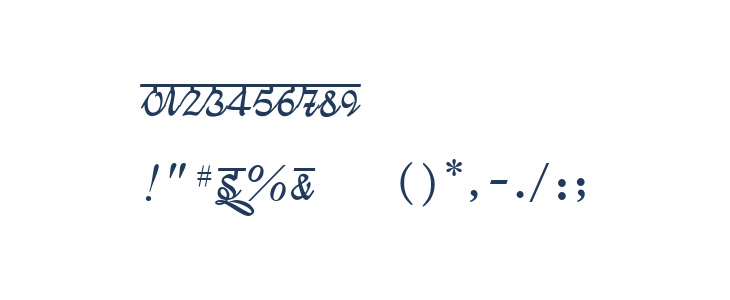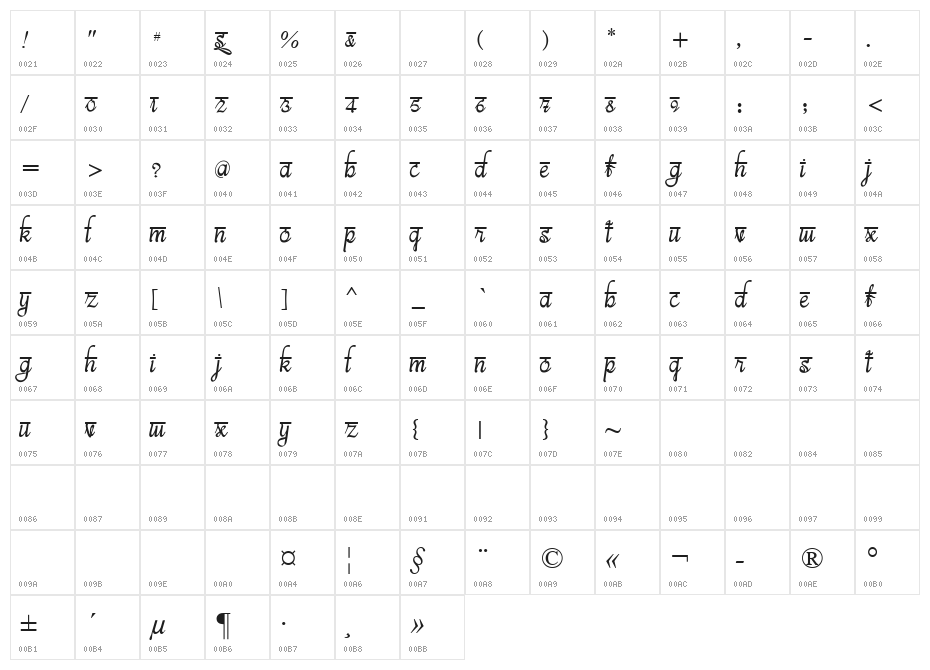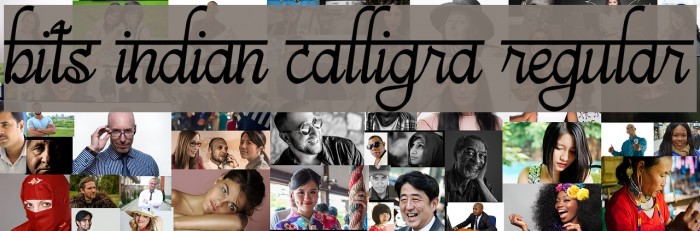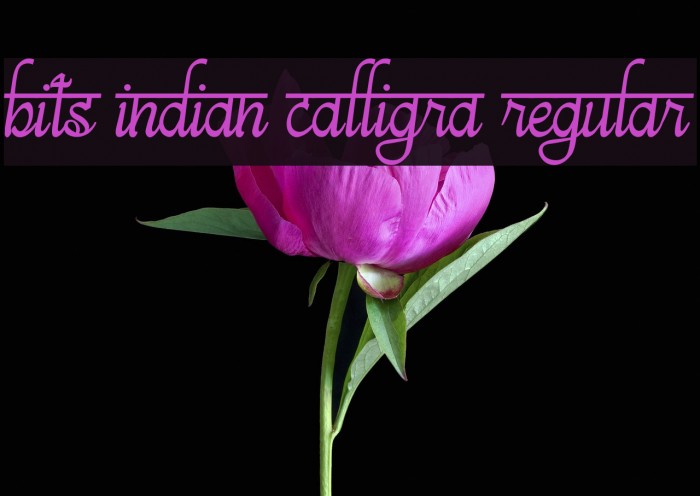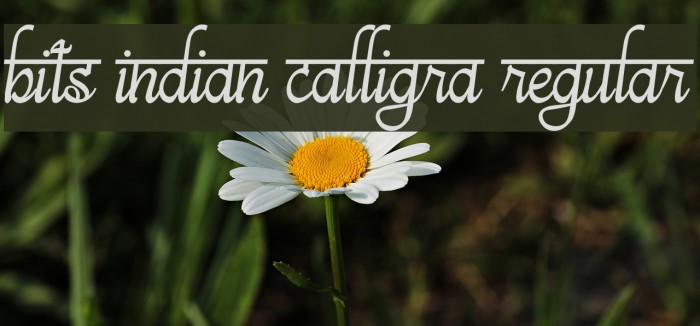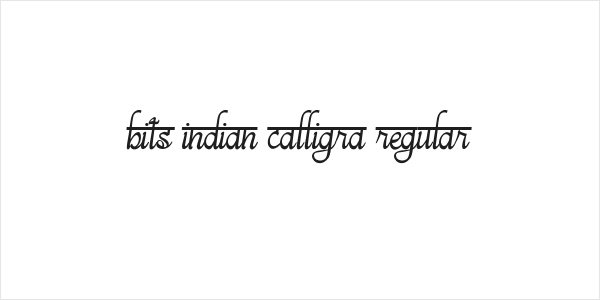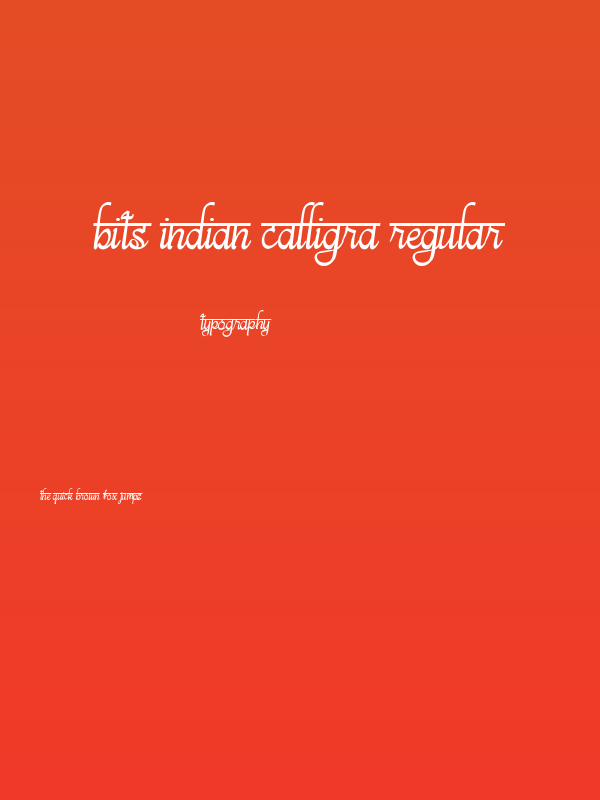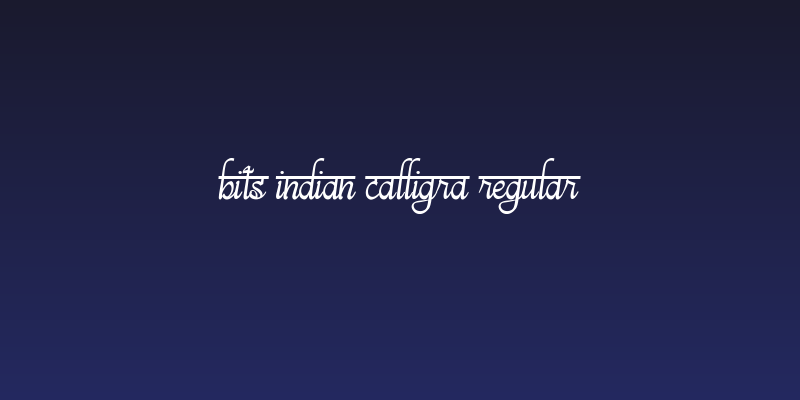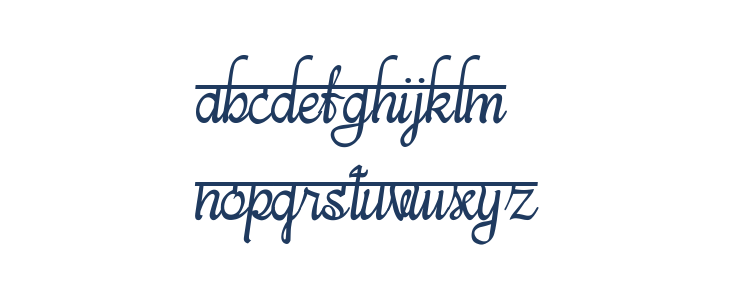
bits indian calligra Regular Font
bits indian calligra Regular Description
This font exudes a classic calligraphic style with a modern twist, characterized by elegant, flowing strokes and a sense of movement. The letters are connected, creating a seamless and fluid appearance. The uppercase and lowercase letters maintain a consistent style, with the lowercase letters featuring distinctive loops and curves. The numerals and special characters are designed to complement the overall aesthetic, maintaining the same fluidity and elegance. This font is perfect for projects that require a touch of sophistication and artistic flair.
Overall StyleClassic
Use CaseLogos, Invitations, Artistic projects
Proposed ProjectsIdeal for wedding invitations, greeting cards, elegant branding, and artistic posters.